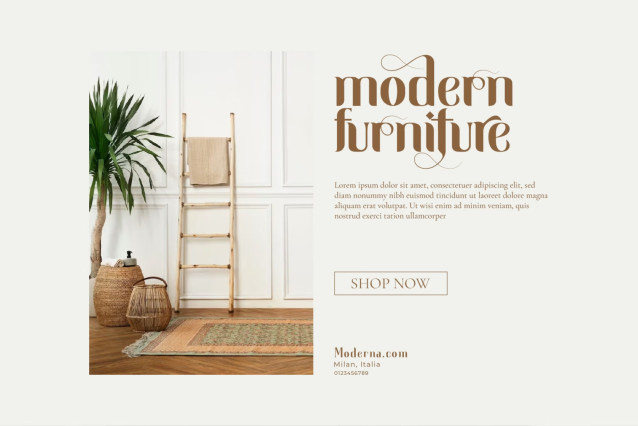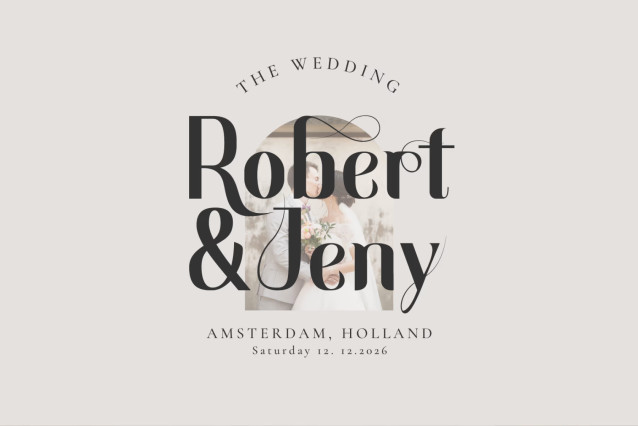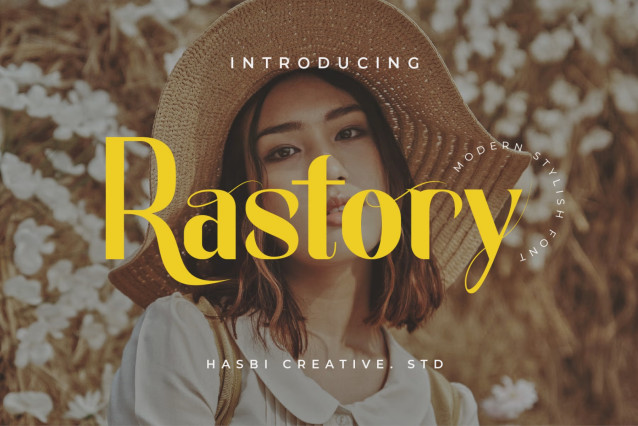
Rastory – Stylish Font
Introducing Rastory Stylish Font, a versatile and modern typeface that seamlessly blends elegance and style into your creative projects. With its clean lines, balanced proportions, and contemporary aesthetic, Rastory Stylish Font adds a touch of sophistication and professionalism to any design.
Rastory Stylish Font is a versatile font that can be used for a variety of purposes, including:
• Logos and branding
• Headlines and titles
• Marketing materials
• Wedding invitations and stationery
• Product packaging
• Social media graphics
This font is:
• Modern and stylish design
• Multilingual support
• Easy to use